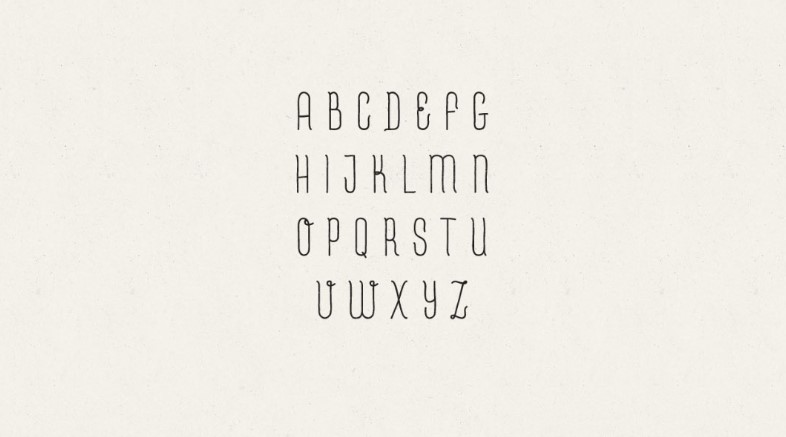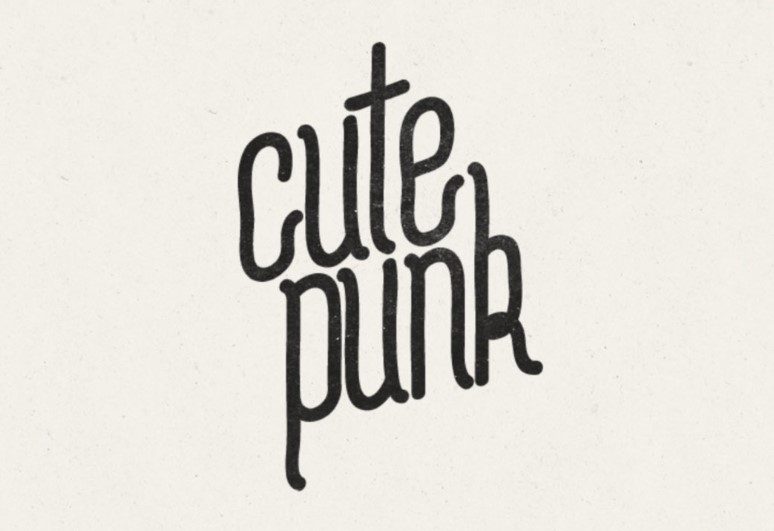
Cute Punk Font
Cute Punk Font is extensively famous for its script typeface. This typeface is known for its text generator function and it is also present inside google fonts. Its appearances are excessive in huge sizes in the hobby of small. However, the topography every better and decrease case letterings, numbers, and glyphs.
Stimulated with the beneficial resource of using, the girly subjects script font is a fashion font that works satisfactorily on an in-intensity style of practical format ventures. Cute Punk Font Free The letterings on this are all pinnacle times, however, they‚Äôre complete of happiness and properly-because of this that of a house on our calm, loose fonts listing. It’s far a self-made brush with sufficient characters. It is a clean, ambitious and curved that works splendidly in superb sizes, which encompass headings.